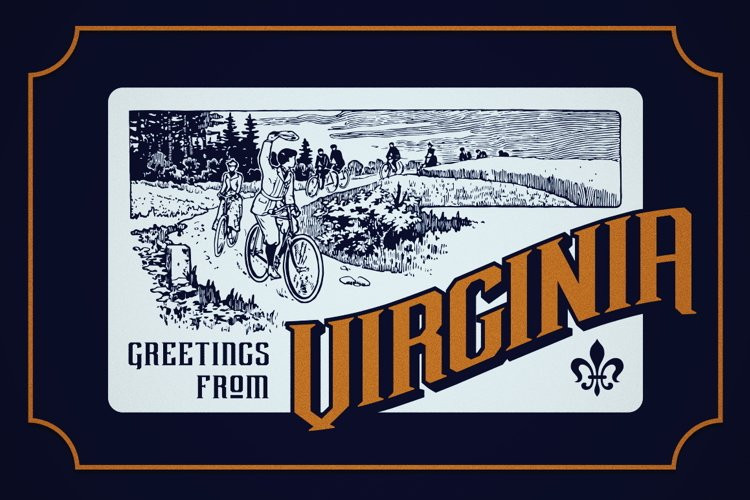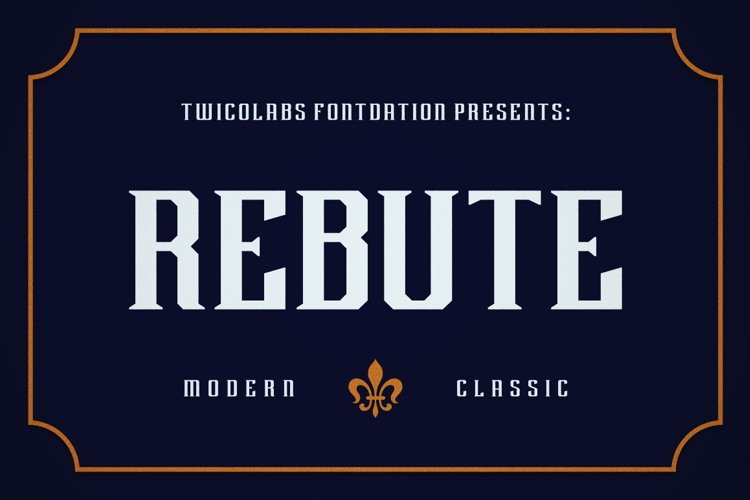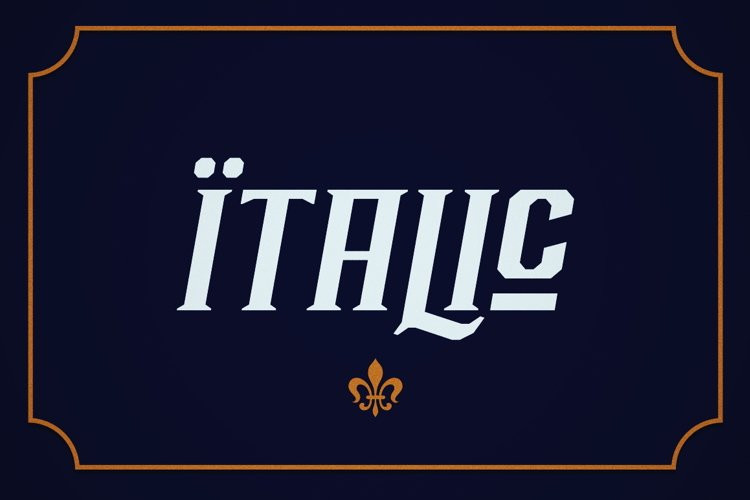
Rebute Font
Rebute FontIntroducing, Rebute, a sporty and strong looking typeface.
We gave
it a little classic touch too to keep them relevant with the present
hype (who doesn’t like vintage font nowadays, huh?).
This all-caps beast
is highly versatile, you can use it as a stand-alone warrior, but also
worked well with other fonts.
Working on a vintage and/or sport themed
designs? Well, let this strong and reliable typeface tackle everything
for you.